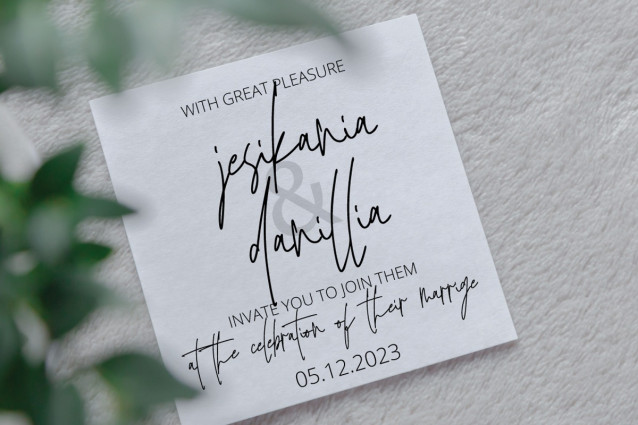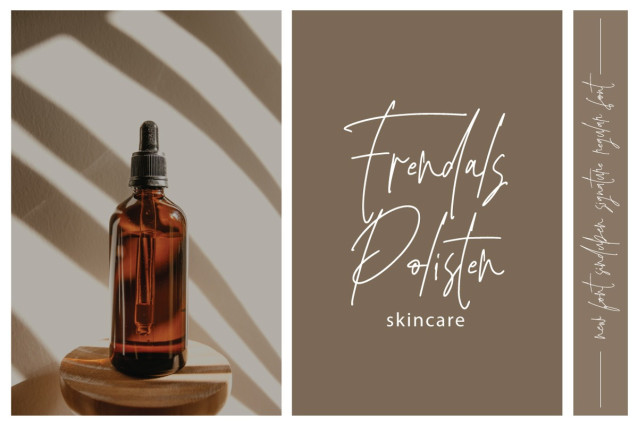
Sindupen Signature Font
Sindupen Signature with a handmade Signature style, decorative characters and a dancing baseline! So beautiful on invitation like greeting cards, branding materials, business cards, quotes, posters, and more!!